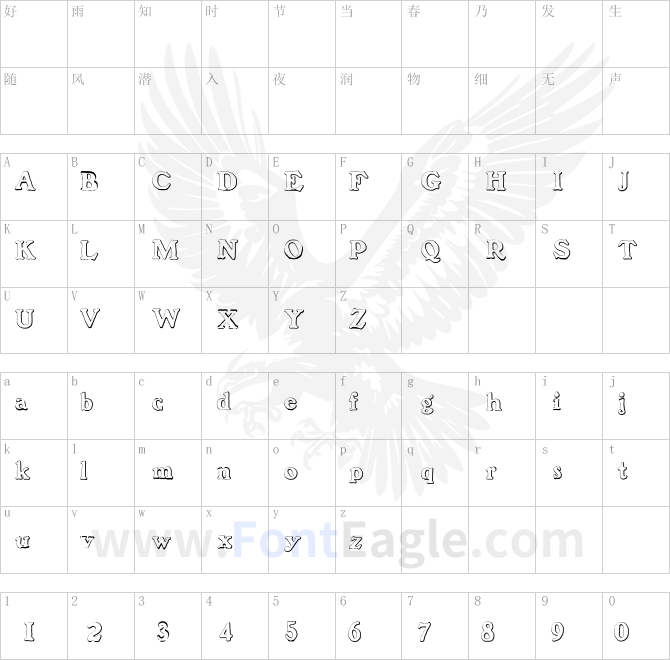
- Font name:BenjaminFranklin Beveled
- Font Subfamily ID:PauloW,IntellectaDesign: BenjaminFranklin Beveled: 2011
- Font Full Name:BenjaminFranklin Beveled
- Postscript:BenjaminFranklinBeveled